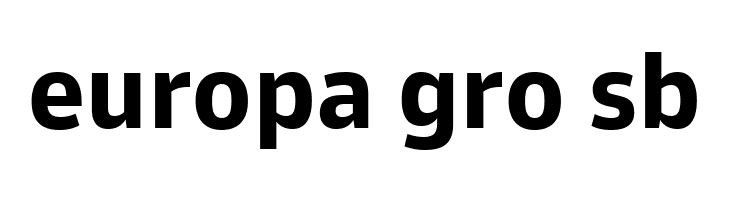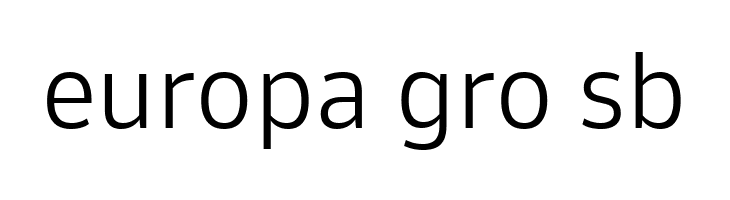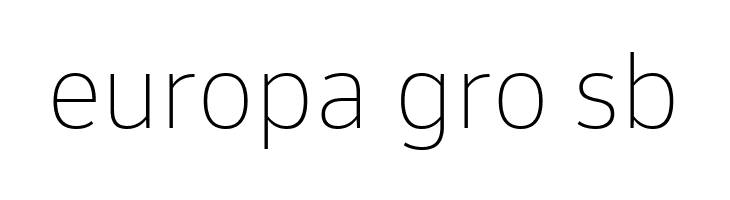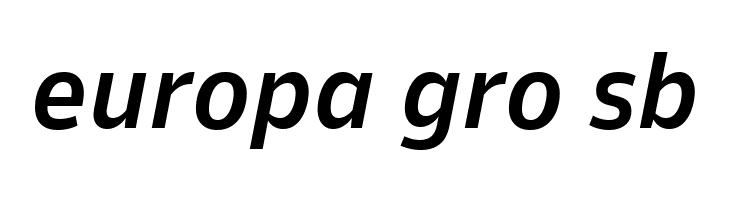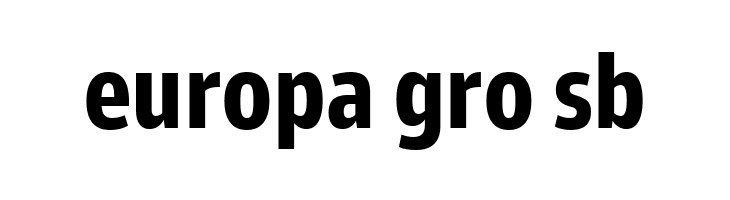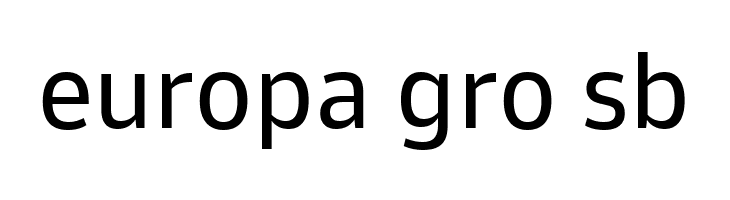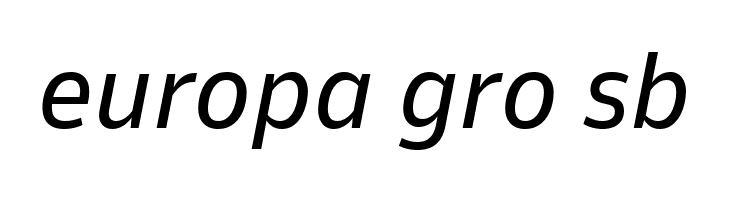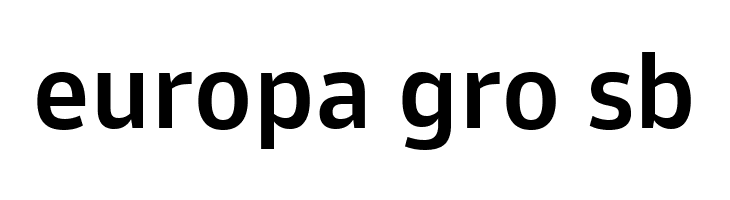
A bold, modern sans-serif font with clean lines and balanced spacing.
A clean, modern sans-serif typeface with excellent legibility and balance.
A modern, thin sans-serif font with a clean and minimalist design.
A modern, medium-weight italic sans-serif font with a sleek and professional look.
A bold, condensed sans-serif font with a modern and robust appearance.
A modern, clean sans-serif font with balanced proportions and excellent readability.
A modern, italic sans-serif font with clean lines and excellent readability.
A modern, medium-weight italic sans-serif font with a sleek and dynamic style.
A modern, clean sans-serif font with balanced proportions and consistent stroke widths.
A bold, modern sans-serif typeface with strong, uniform strokes.